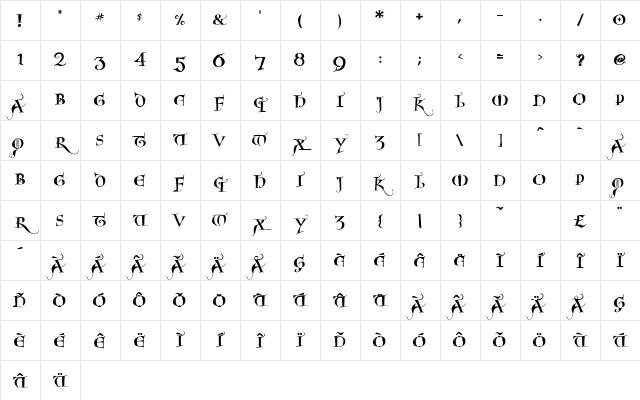
NoelBlack Medium
Design Context for NoelBlack
NoelBlack is a composed and adaptable typeface that performs quietly and consistently across a wide range of design contexts.